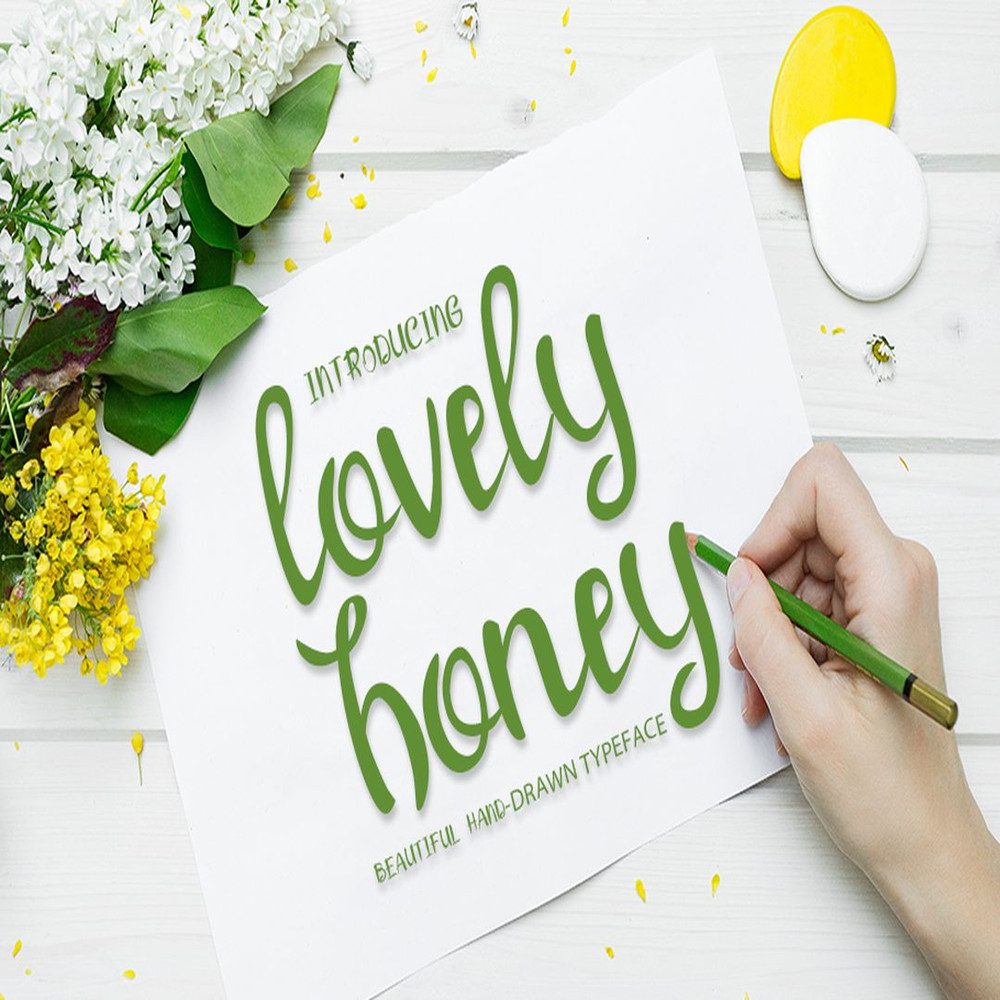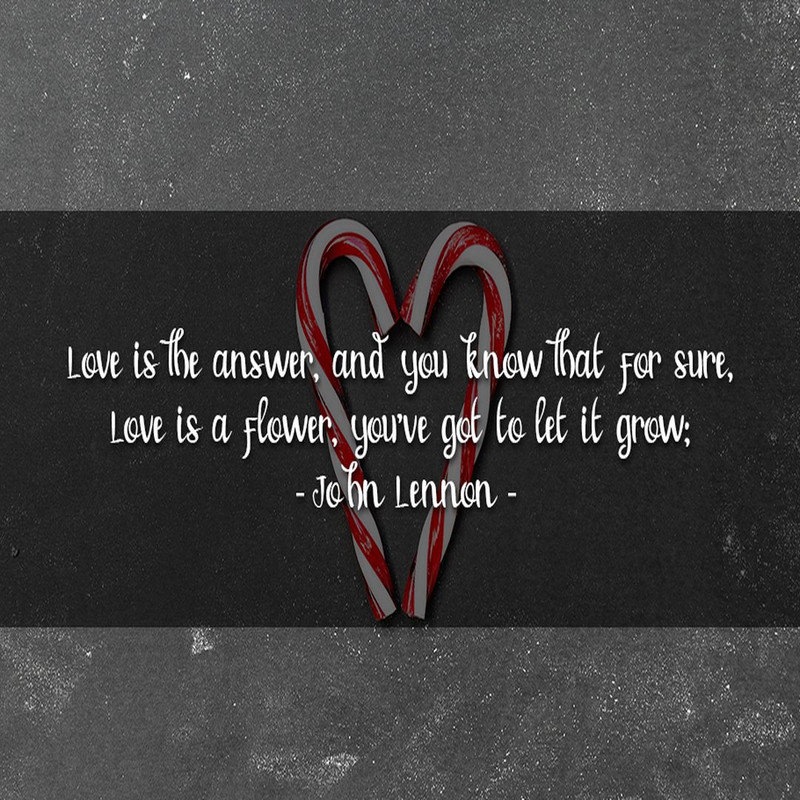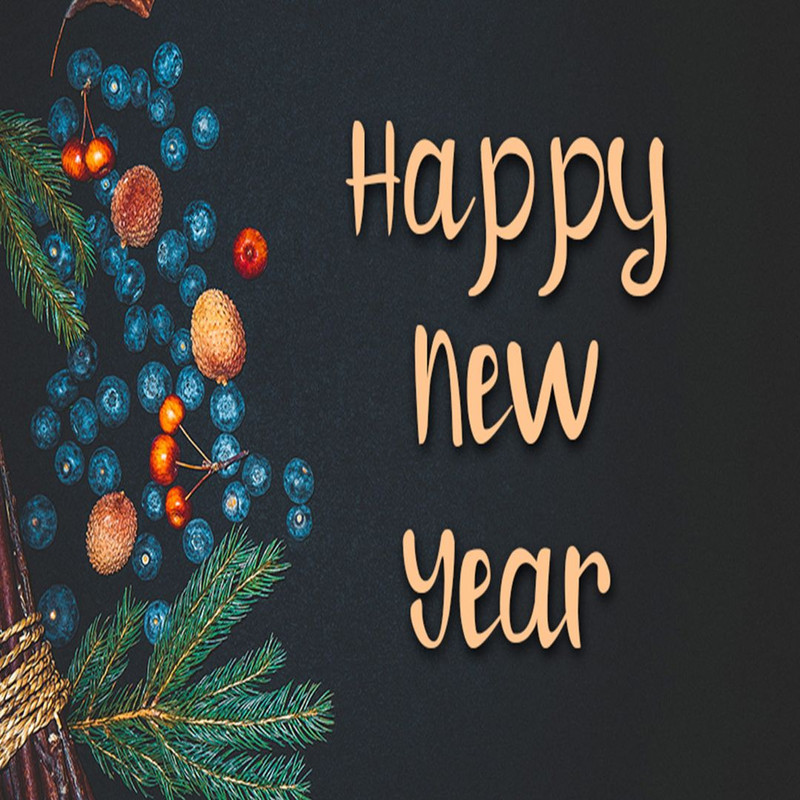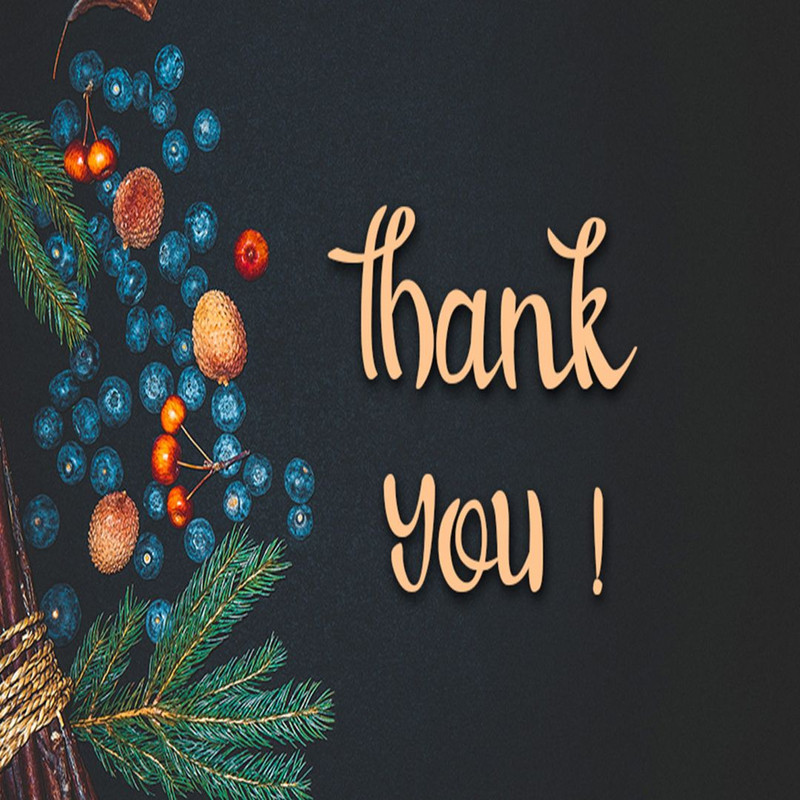
Lovely Honey Trending Fonts - Digital Font
The Lovely Honey is a new fresh and modern typeface, it can be use for greeting card, branding material, quotes, posters,